Martina Plantijn
Martina Plantijn is a beautiful Old Style serif that is elegant, understated at small sizes and features graceful curves and proportions at larger sizes. Named for the 17th-century printer, it is a flexible and robust family for fine typography.
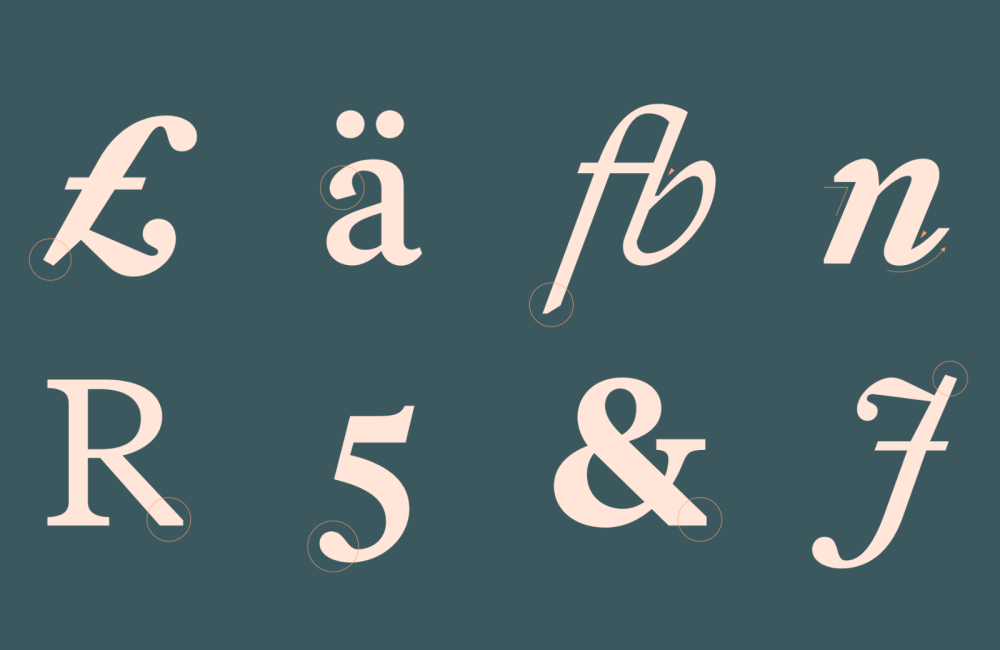
NN Konrad
NN Konrad was designed as a contemporary reimagining of the first printed roman type from the 15th century. Its early gothic heritage is apparent in the letterforms, updated for the digital age. It’sIt’s a brilliant typeface that stands out from the crowd.
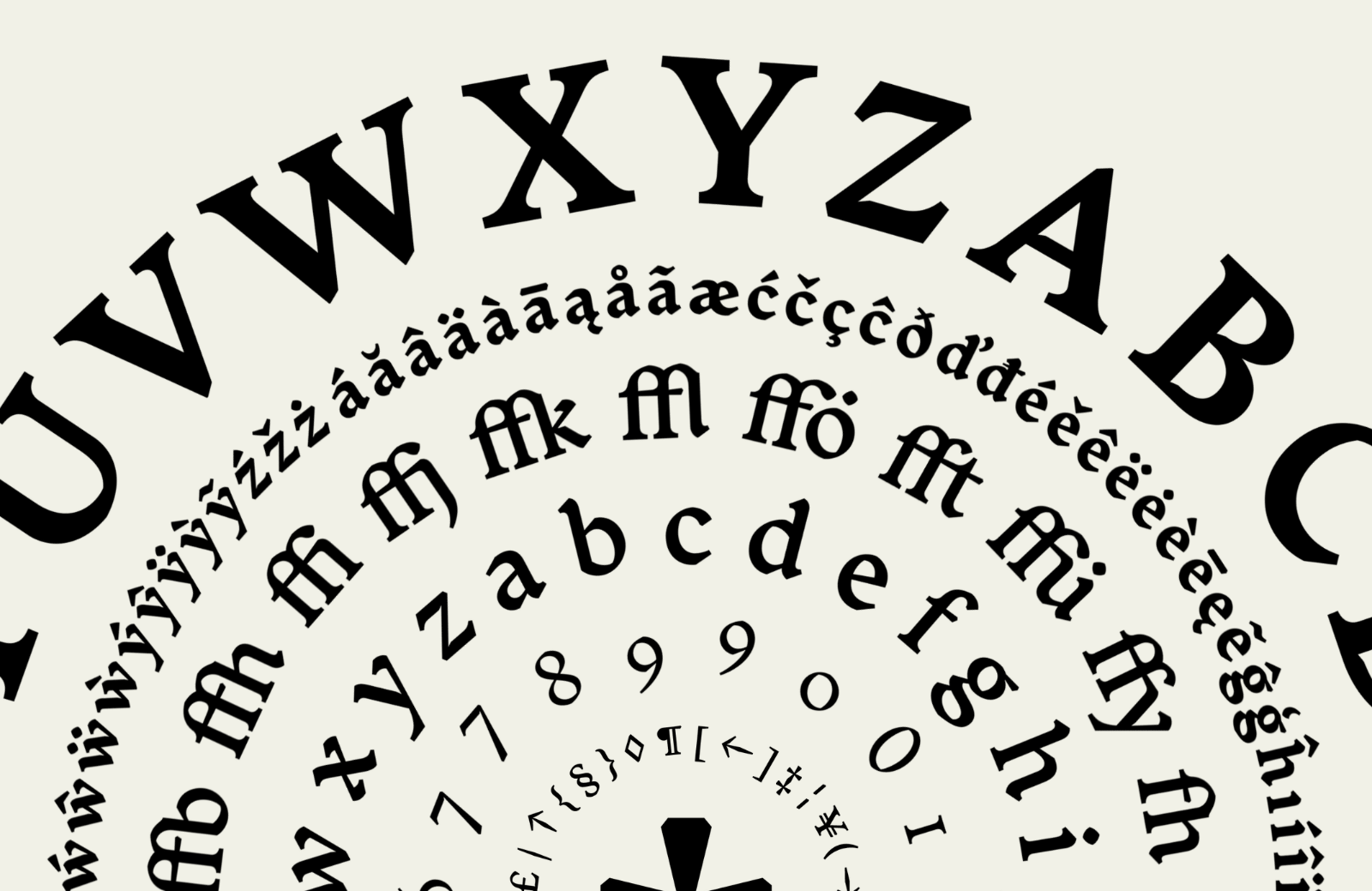
Gismo
Gismo is a chunky font family with four styles: Round, SemiRectangular, and Rectangular. The modern sans-serifs have thin connectors and sharp terminals. It’sIt’s a unique set of fonts that is a gift for logo designers.
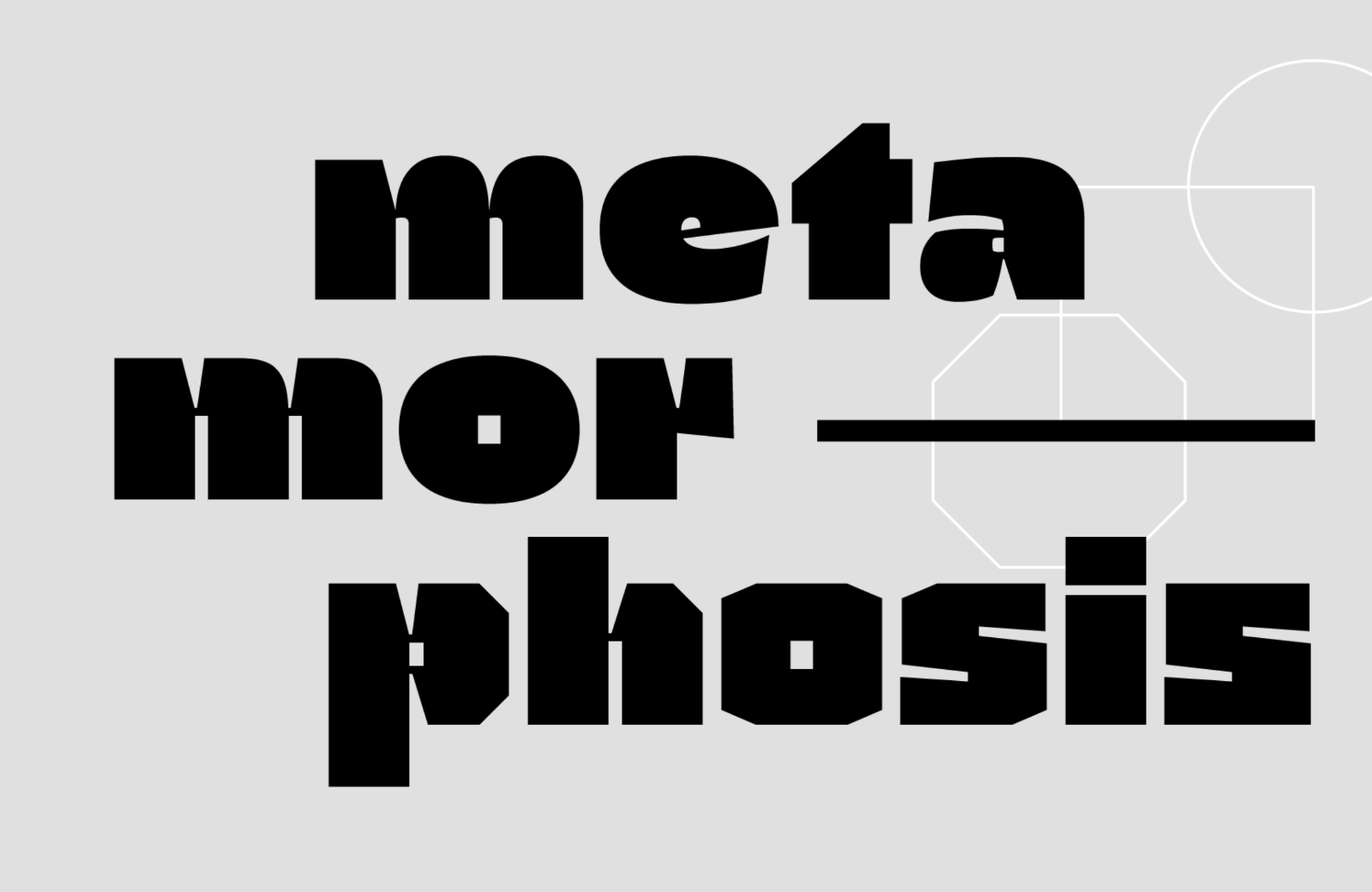
Solfa
Solfa is a condensed sans-serif designed to be used at large sizes. Its heavy weight and bold graphical shapes are attention-grabbing. Initially designed for the foundry’s branding, it’s a rugged, confident typeface that leans into the Brutalist trend.
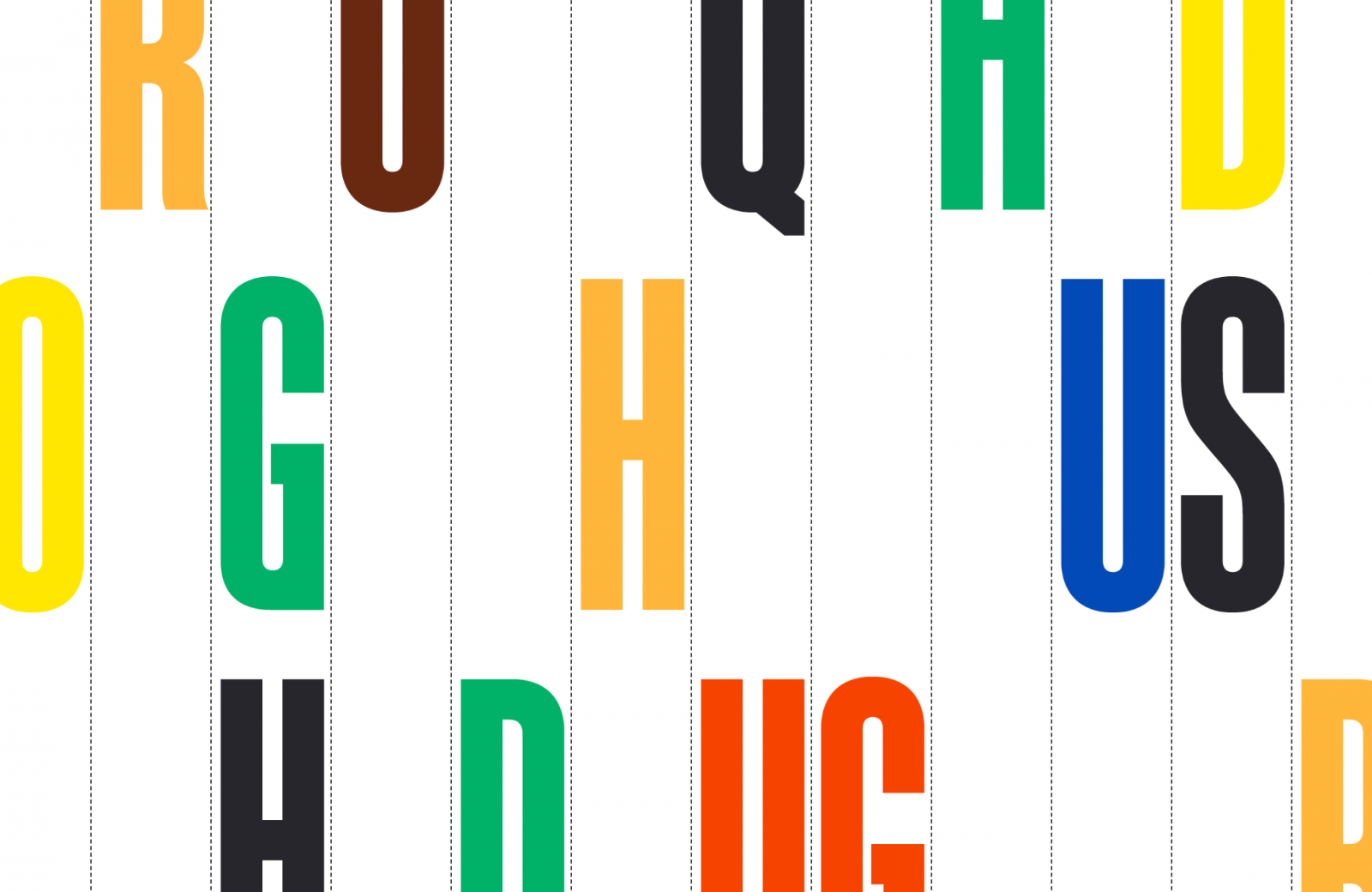
Anona
Anona is an upright italic — a sans-serif that employs all the characteristics of an italic except the slant. It works wonderfully well on screen, thanks to its vertical strokes. And the hand-written quality adds a clear human presence to the design.
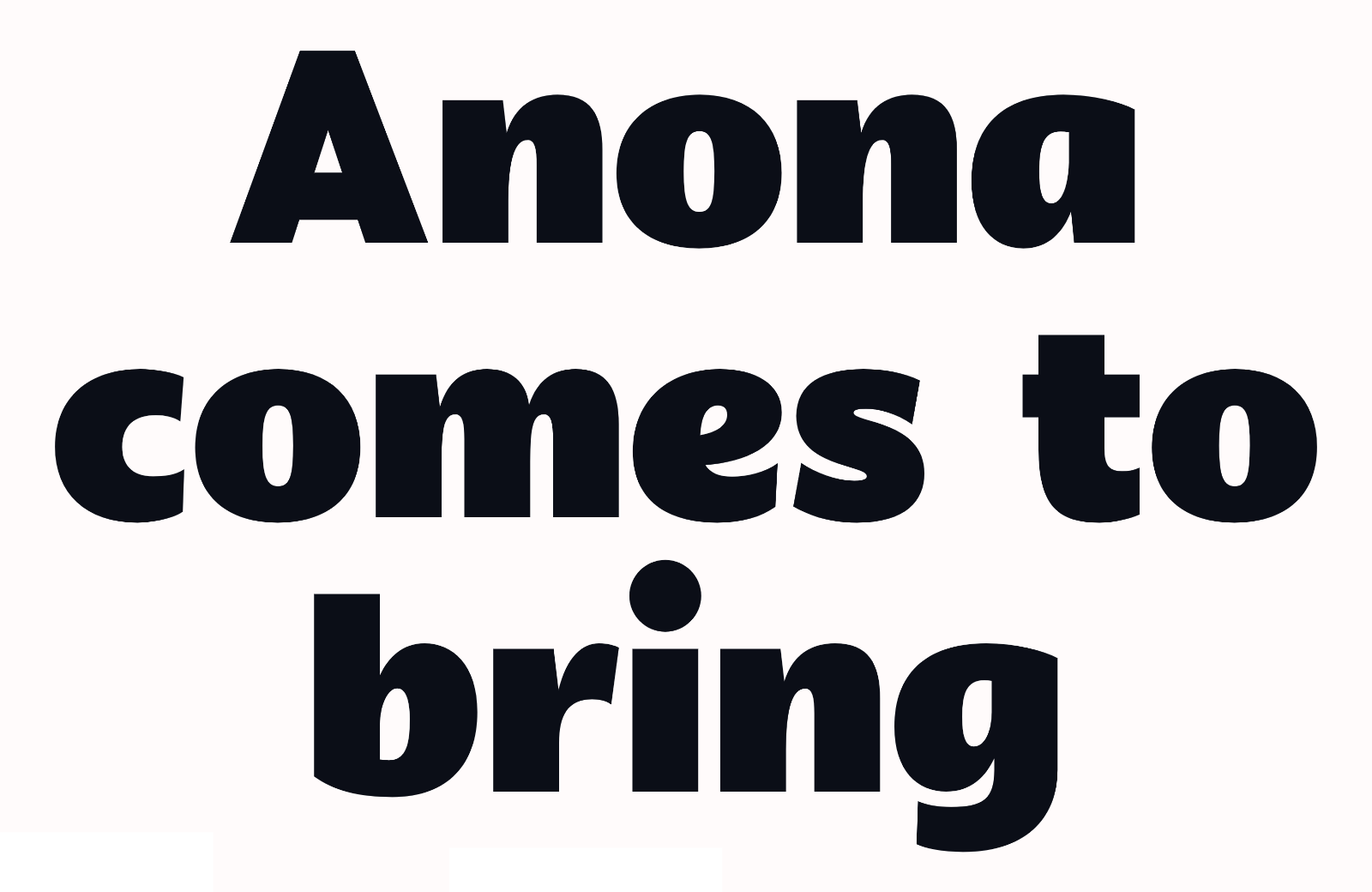
Wander Cloud
Wander Cloud is one of those typefaces that look amazing but are next to impossible to read. Use it sparingly, and don’tdon’t think about running text. It would work well if the right combination of letters were needed.
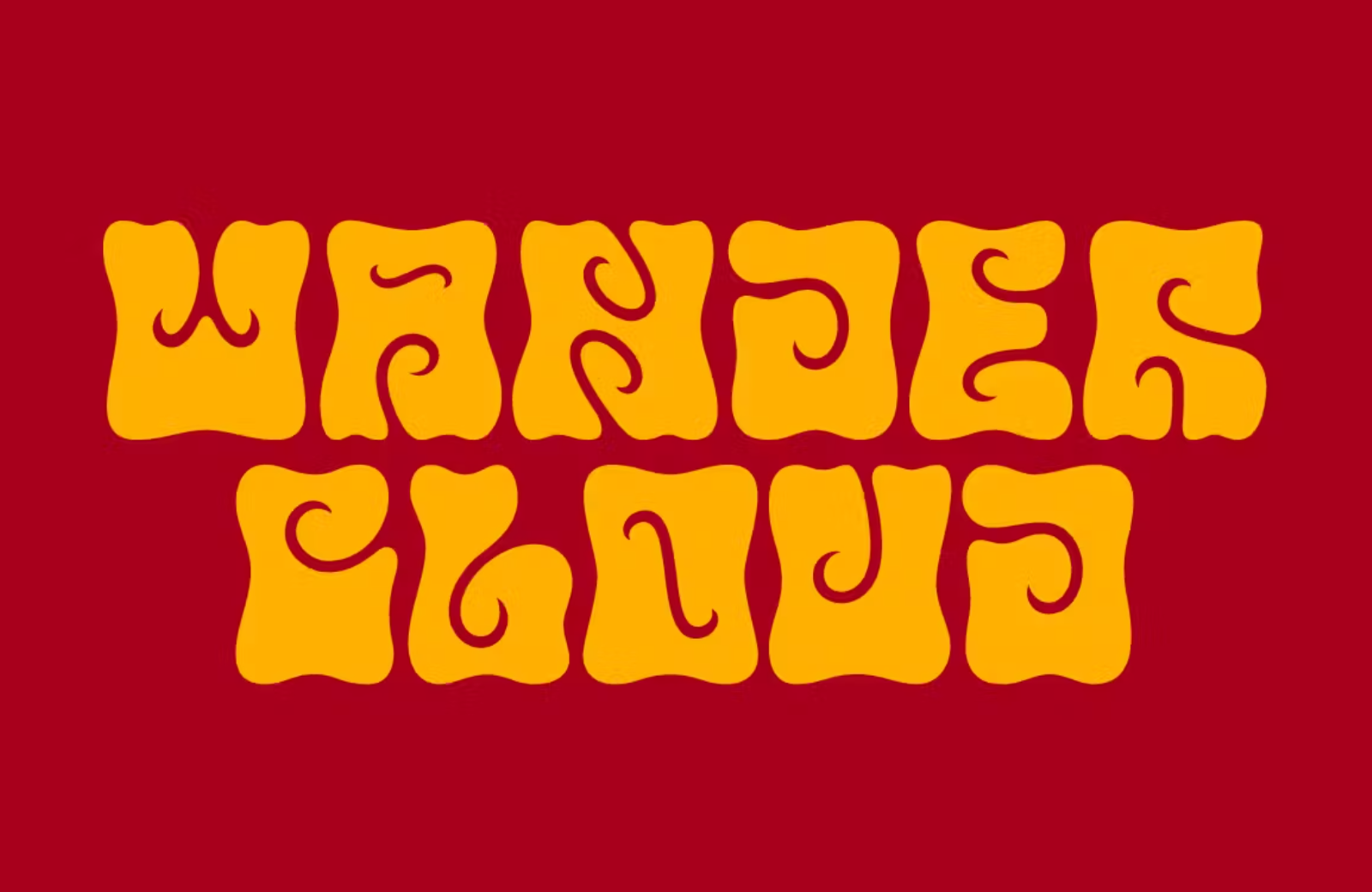
Paramount
Paramount is a pair of typefaces, regular and Neo. The former is more usable, but Paramount Neo has the most character, drawing inspiration from NASA’sNASA’s famous worm logotype. They are excellent choices for brand design, together or singly.
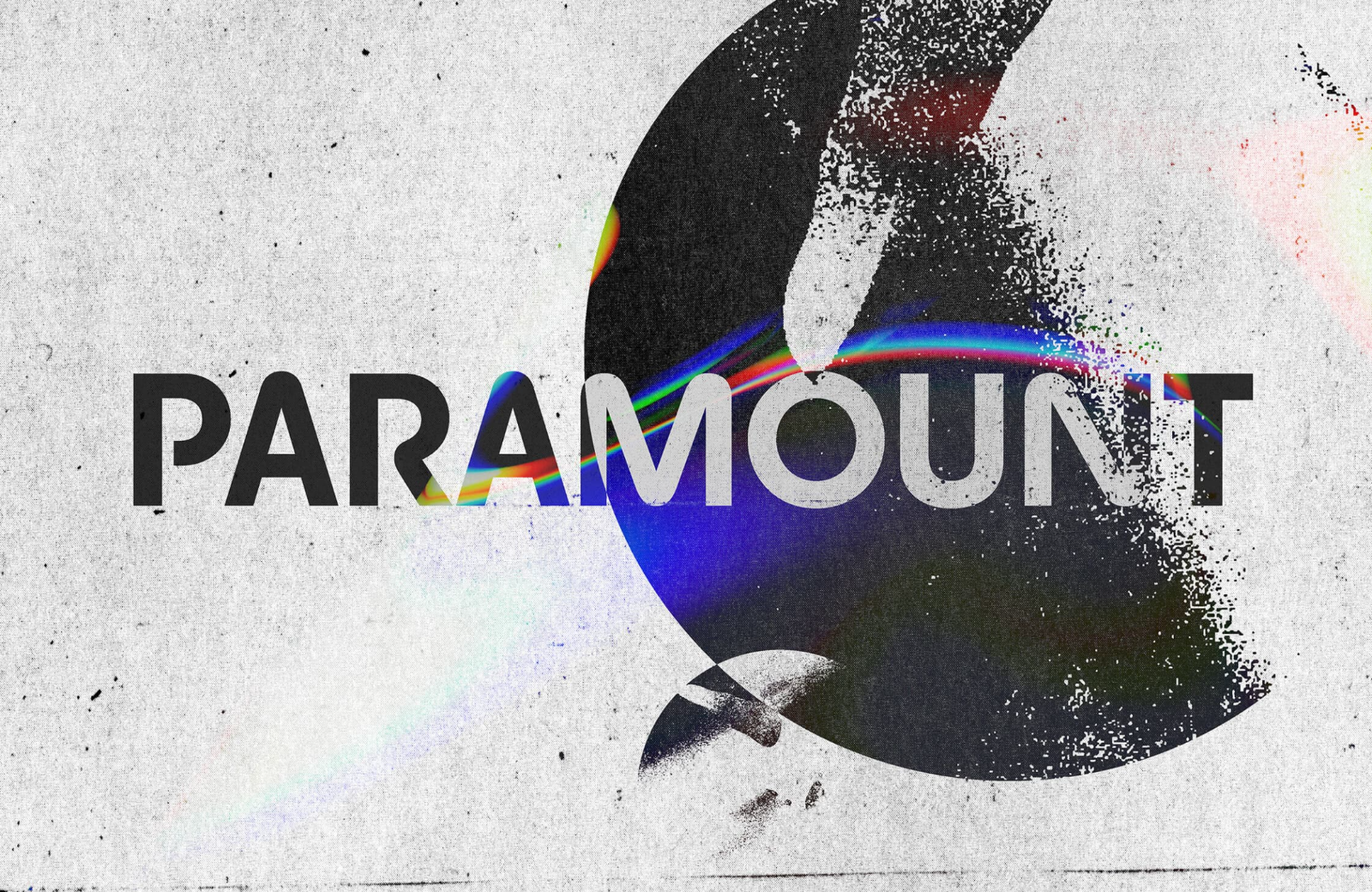
Juneau Deco
Juneau Deco is a beautiful example of architectural type design. It was created as a custom typeface by Tour de Force for the Stalwart Group based on Art Deco lettering on its Wisconsin headquarters. Juneau Deco is free to use with attribution.
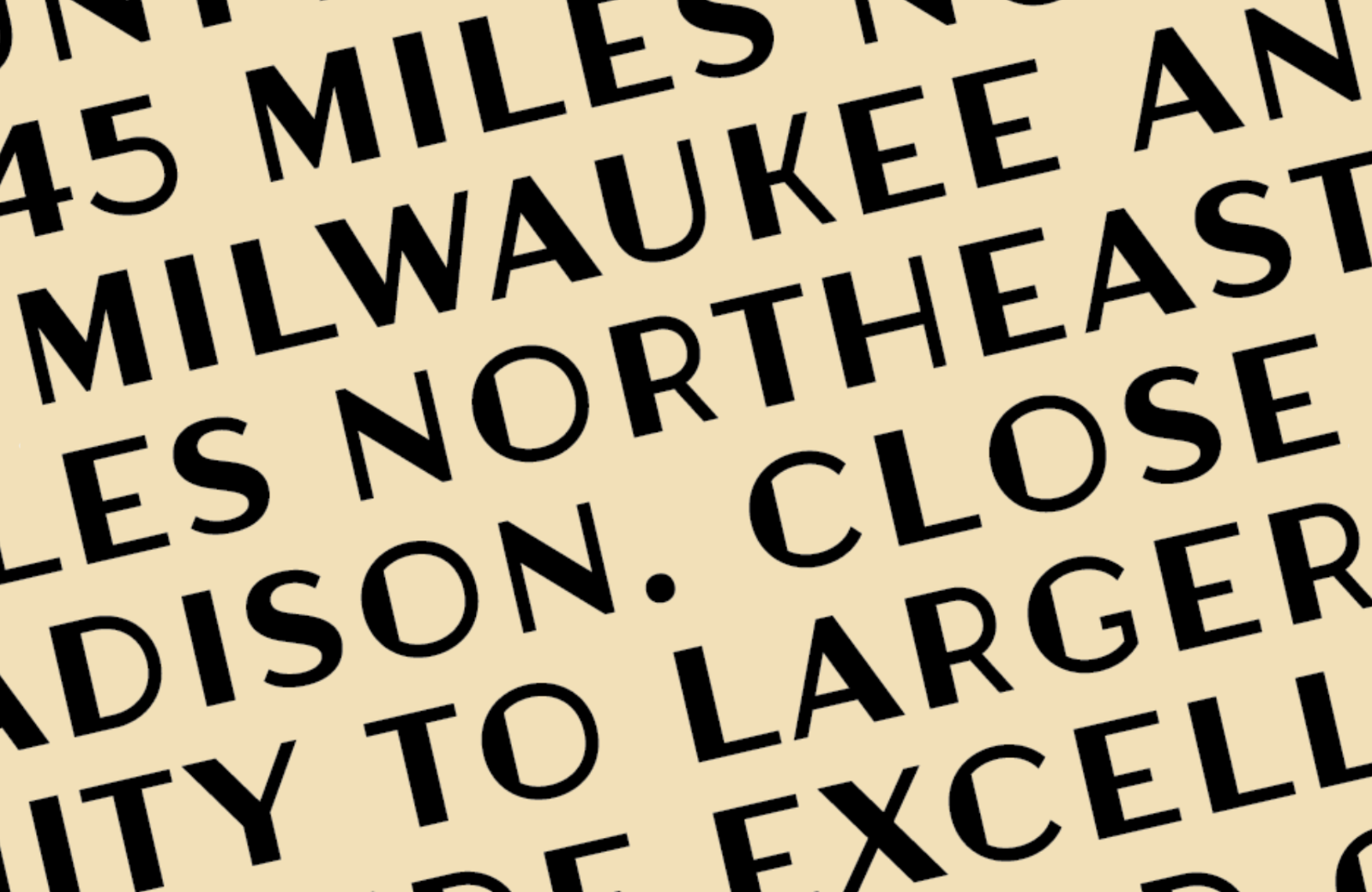
Kayshi Sans
Kayshi Sans is an elegant sans-serif with graceful curves built into the letterforms so that the word shapes appear to undulate. The high-contrast and flared terminals give it a retro feel.
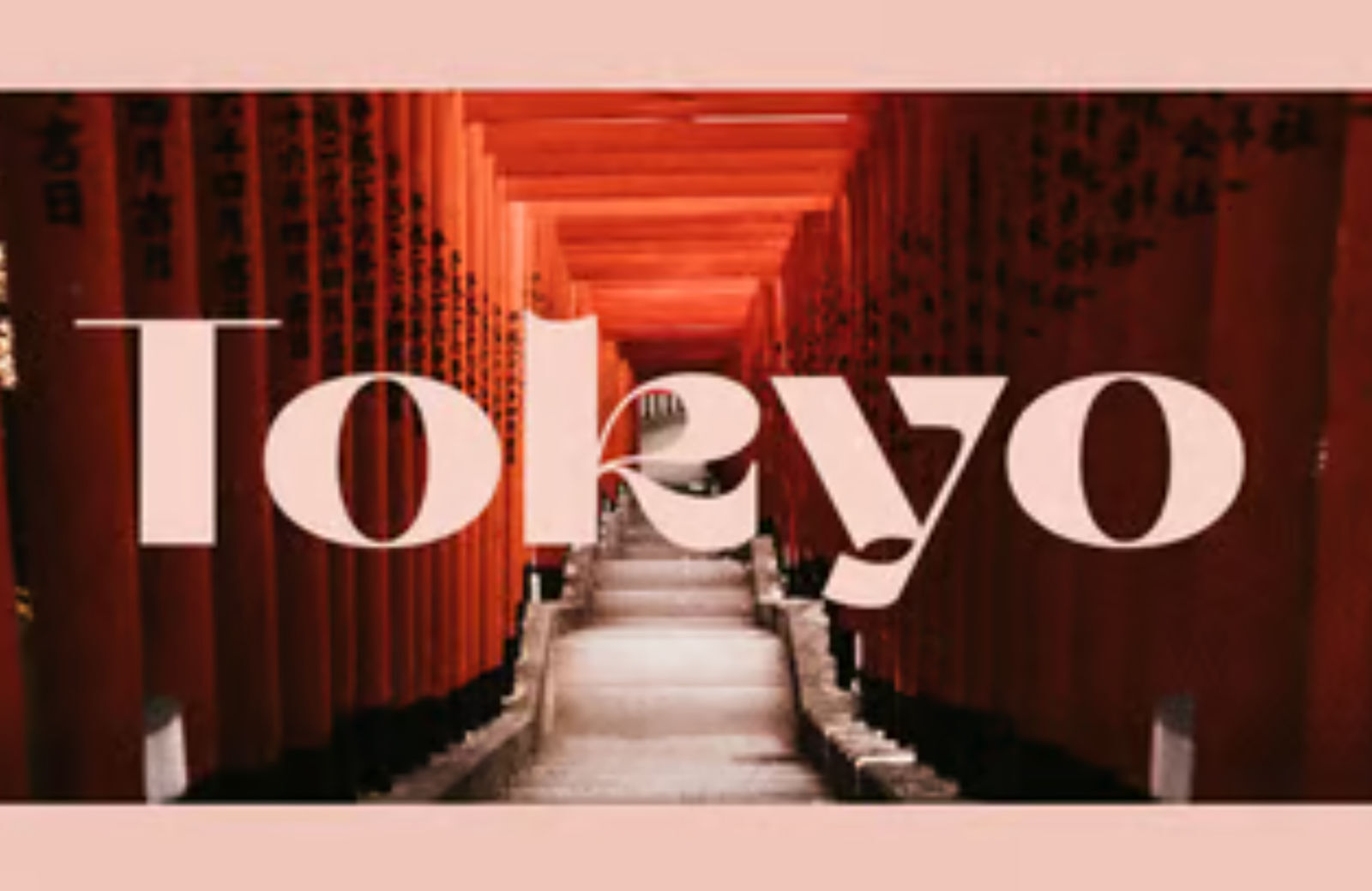
South East
South East is an excellent workhorse, with 18 styles ranging from Extralight to Black and accompanying italics. Its design is based on the Korean alphabet’s shapes, yet it looks distinctly Swiss.
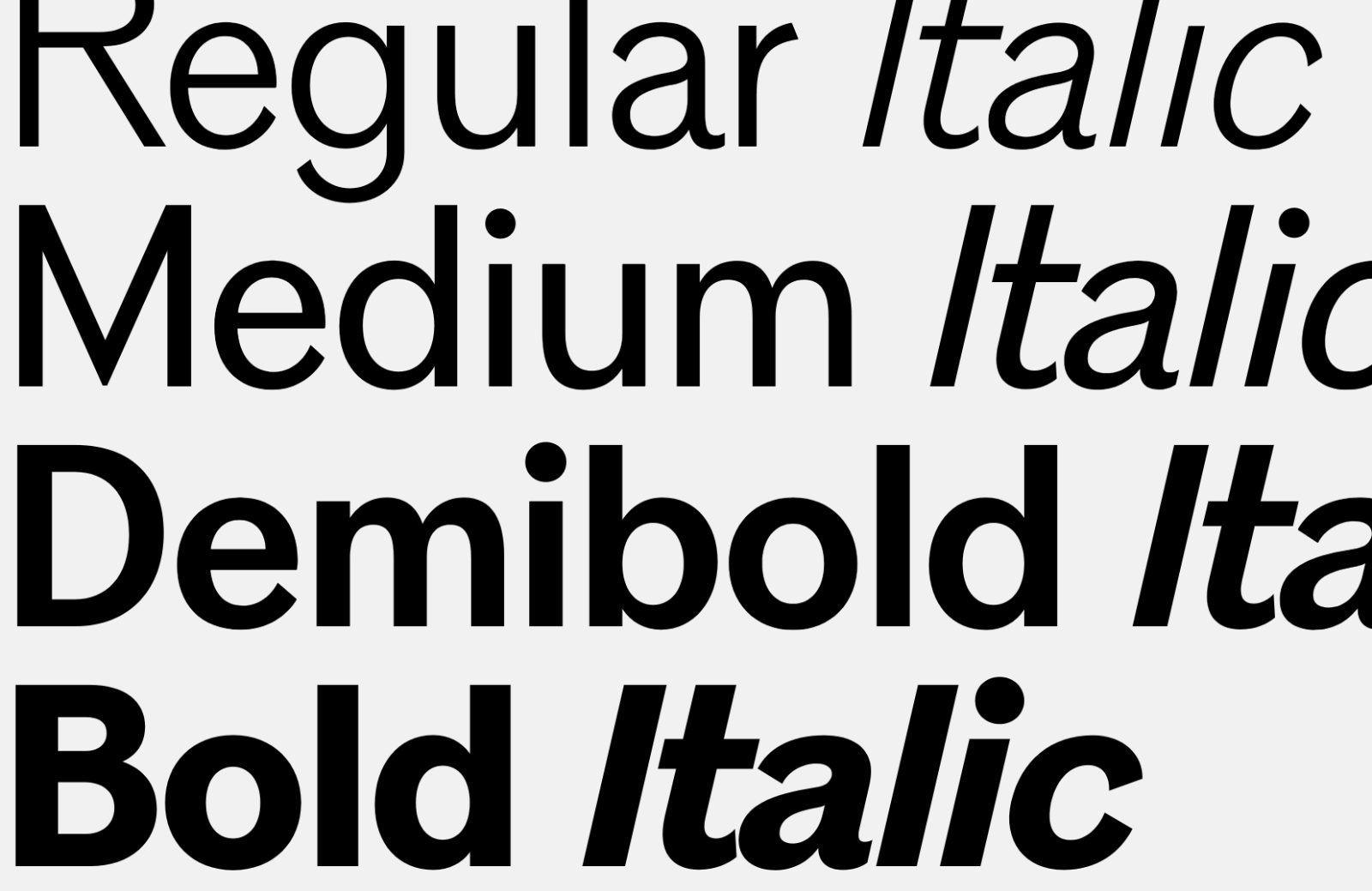
Calleo
Calleo is a modern font family offering highly useable sans alongside a more experimental Flux variation. It’sIt’s highly legible at small sizes, making it a good choice for screen design, and Calleo Flux is an intriguing design for headings.
Artemesia
Artemesia is a beautiful serif with mixed-width glyphs. The flowing ribbon-like strokes feel calligraphic, and the typeface has an evident Greek influence.
Lucius
Lucius began life as a serif, but during the design process, a sans emerged. Retaining some of the characteristics of the serif, the family is a bold, almost black design. It’sIt’s a solid choice for logo design or short headings.
Isard
Isard is a hard-working sans-serif with 14 styles, from Thin to Black, plus accompanying italics. It has a pleasant vertical rhythm and slight boxiness. It works well for large blocks of text.
Garibaldi
Garibaldi is a condensed sans with a strong rhythm and geometric forms. There are nine weights which give you a great deal of flexibility. It’sIt’s a strong choice for logos.